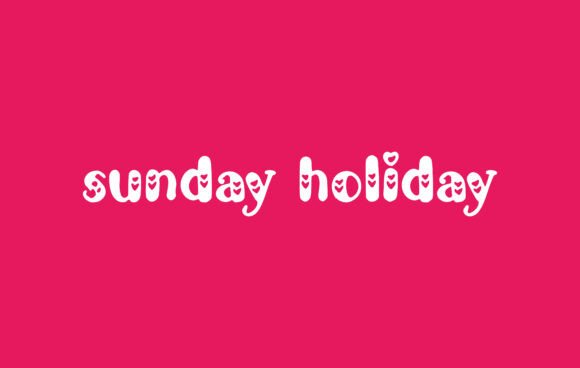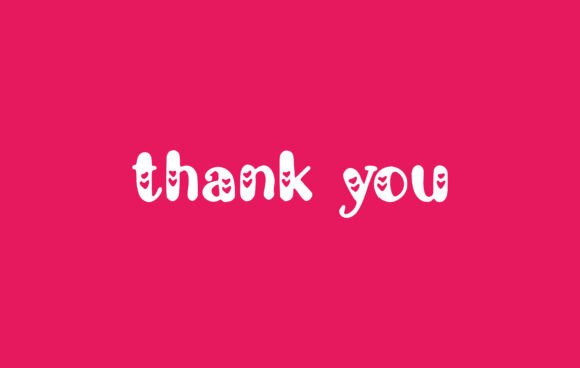
Introducing Anchor Script Font: The Sweetest Way to Add a Loving Touch to Your Designs
Are you looking for a font that exudes love, warmth, and playfulness? Look no further than Anchor Script Font, a beautiful display font that features heart-shaped accents in every letter. This charming font is perfect for love-themed projects, Valentine’s Day designs, or any branding that needs a touch of romance and whimsy.
What Makes Anchor Script Font So Special?
Anchor Script Font is a unique and eye-catching font that stands out from the crowd. Its distinctive feature is the heart-shaped accent in every letter, which gives it a sweet and romantic feel. The font is designed to be highly legible and versatile, making it suitable for a wide range of design projects, from digital graphics to print materials.
Perfect for Love-Themed Projects
Anchor Script Font is ideal for designers who want to create love-themed projects that capture the essence of romance and affection. Whether you’re designing a Valentine’s Day card, a wedding invitation, or a social media post for a dating app, this font is sure to impress. The heart-shaped accents add a playful touch to any design, making it perfect for projects that require a lighthearted and romantic feel.
Key Features of Anchor Script Font
- Sweet and Romantic Design: Anchor Script Font features heart-shaped accents in every letter, giving it a unique and charming look.
- Highly Legible: The font is designed to be easy to read, making it perfect for use in a variety of design projects.
- Versatile: Anchor Script Font can be used for both digital and print projects, including social media graphics, invitations, and more.
- Playful and Whimsical: The font’s playful design makes it perfect for projects that require a lighthearted and romantic feel.
How to Use Anchor Script Font in Your Designs
Using Anchor Script Font in your designs is easy and straightforward. Here are a few tips to get you started:
- Pair it with a Simple Font: Anchor Script Font works best when paired with a simple font that provides a clean and elegant contrast.
- Use it for Headings and Titles: The font’s playful design makes it perfect for use in headings and titles, where it can add a touch of whimsy and romance.
- Experiment with Colors: Anchor Script Font looks great in a variety of colors, from soft pastels to bold and bright hues.
Whether you’re a professional designer or a crafter looking for a unique font to add to your projects, Anchor Script Font is a great choice. Here are a few tips to help you get the most out of this beautiful font:
- Use it for Valentine’s Day Projects: Anchor Script Font is perfect for Valentine’s Day designs, including cards, invitations, and social media posts.
- Add a Personal Touch: Use the font to add a personal touch to your designs, such as in custom illustrations or hand-drawn graphics.
- Experiment with Different Sizes: Anchor Script Font looks great in a variety of sizes, from small and delicate to large and bold.
Anchor Script Font is a beautiful and unique display font that is perfect for designers and crafters looking to add a touch of love and romance to their projects. With its heart-shaped accents and playful design, this font is sure to impress. Whether you’re working on a love-themed project, a Valentine’s Day design, or simply looking for a font that adds a touch of whimsy to your work, Anchor Script Font is a great choice.